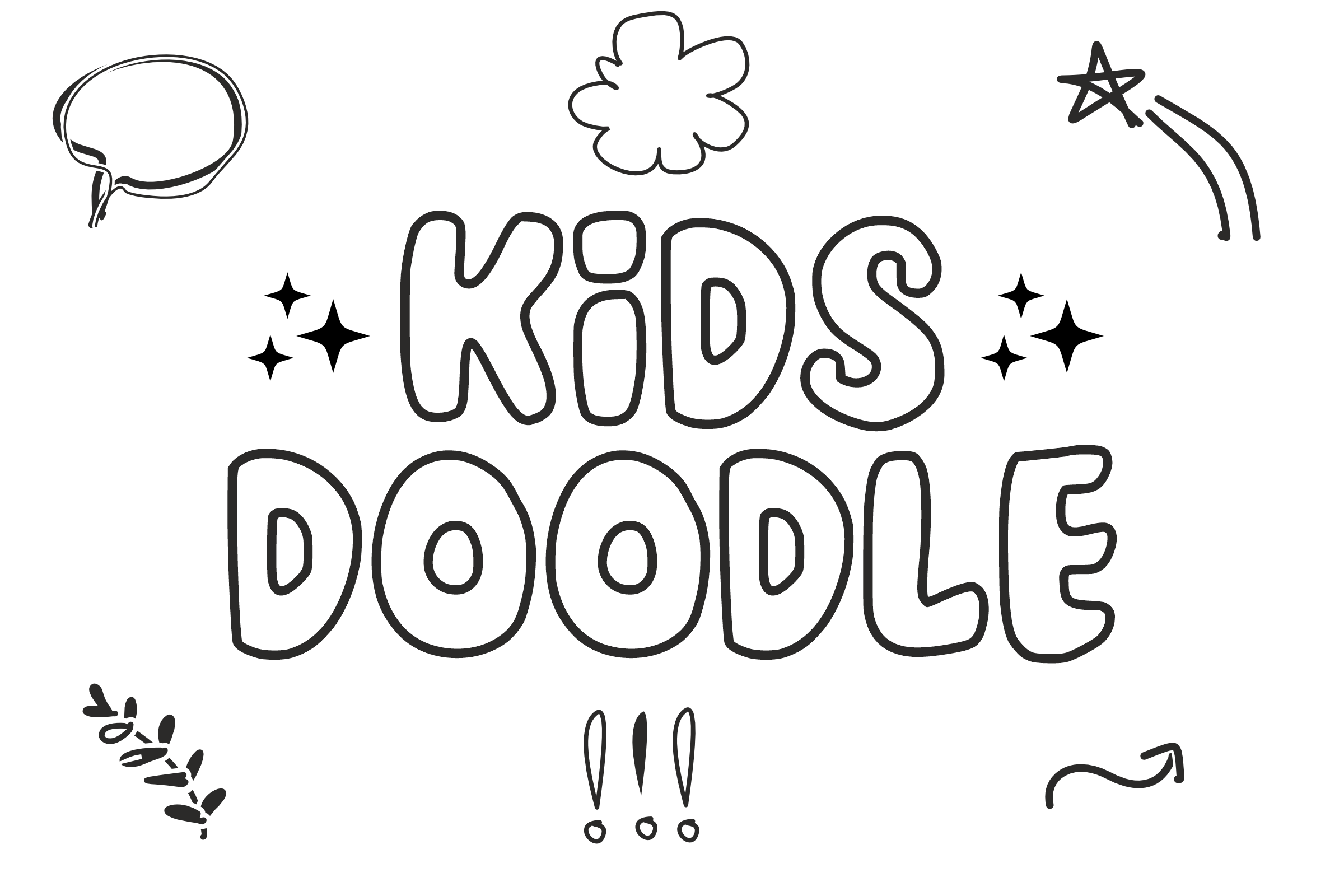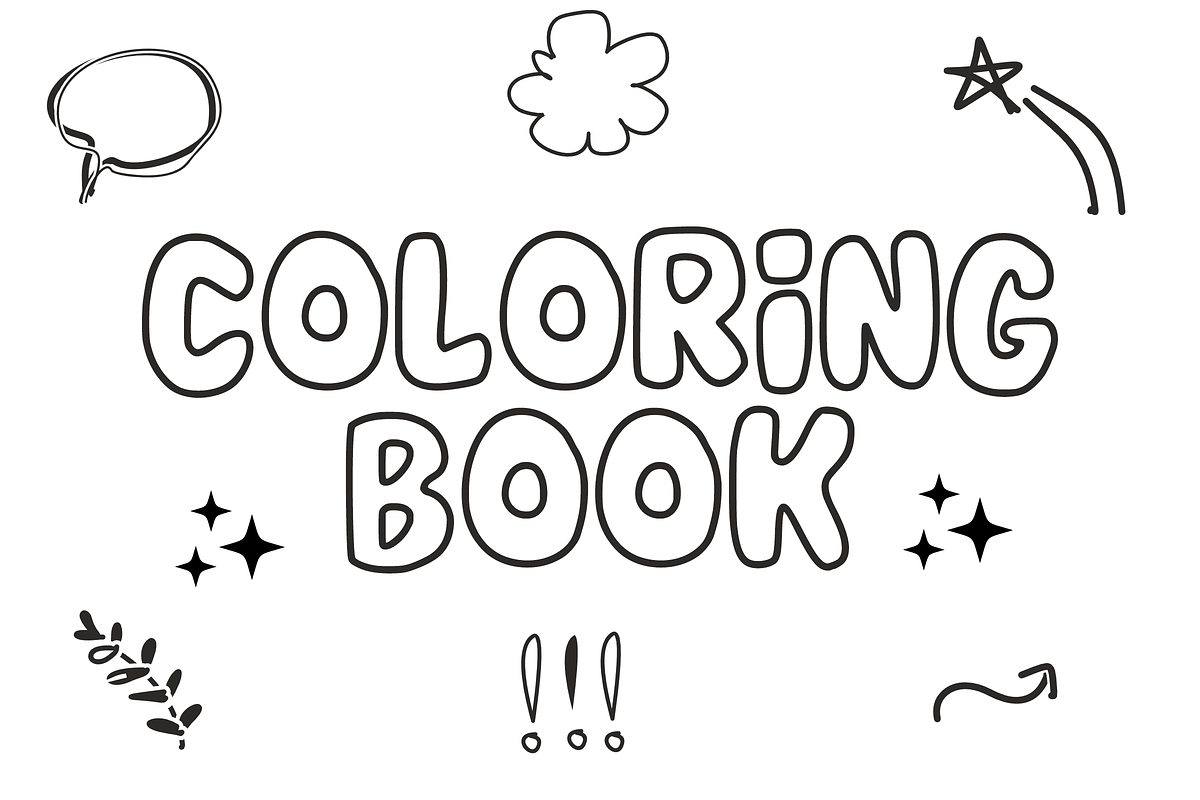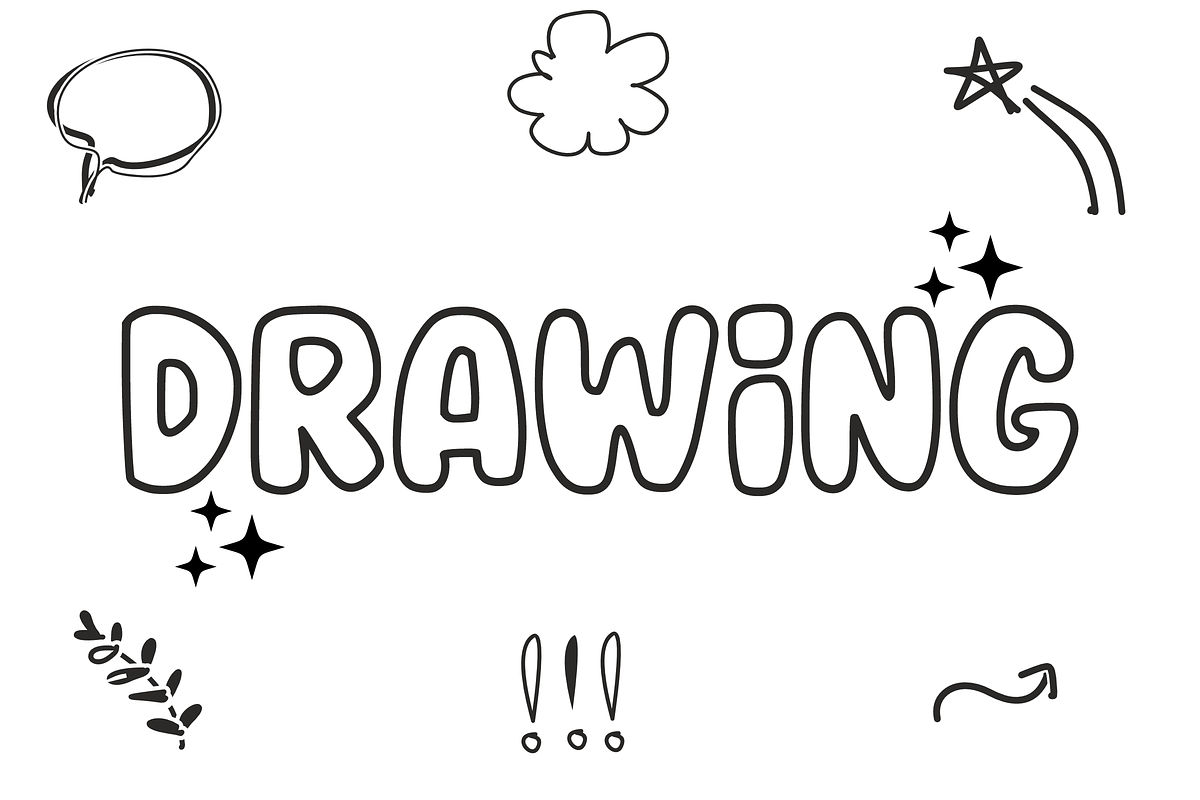
Kids Doodle - Doodle Font Types
Discover the joy of “Kids Doodle,” a vibrant and contemporary font inspired by the limitless creativity of childhood doodles. Easily identifiable, it’s an ideal choice for enhancing sublimation designs on t-shirts, mugs, tote bags, and more. Kids Doodle finds its place not just in fashion but in the animation world, comic book covers, invitations, and greeting cards as well. Exude creativity and charm using Kids Doodle.